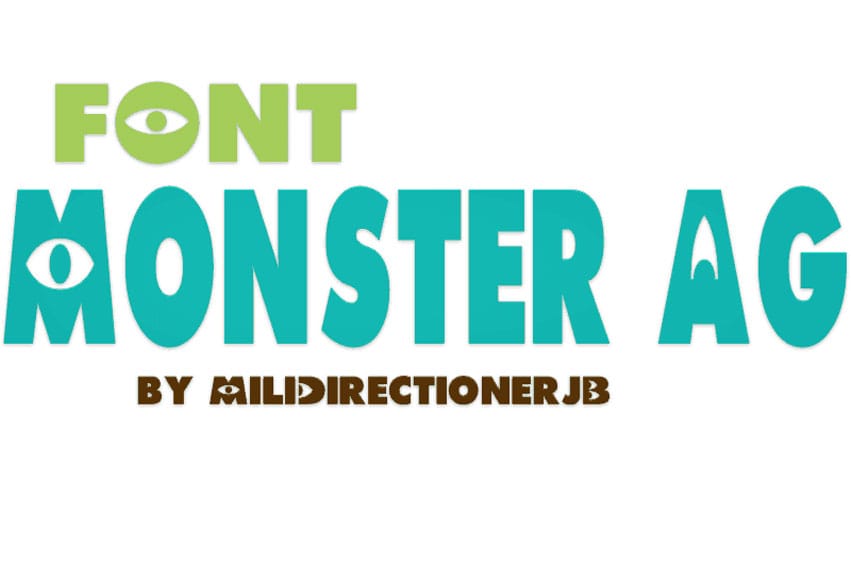
Monster AG Font is a Disney font that is available in high quality which has been designed by Filmfonts and one could use this font for their personal use as it can be obtained through a free download.
The free version of the keyboard offer up and low case alphabet, numbers as well as a few more symbols.